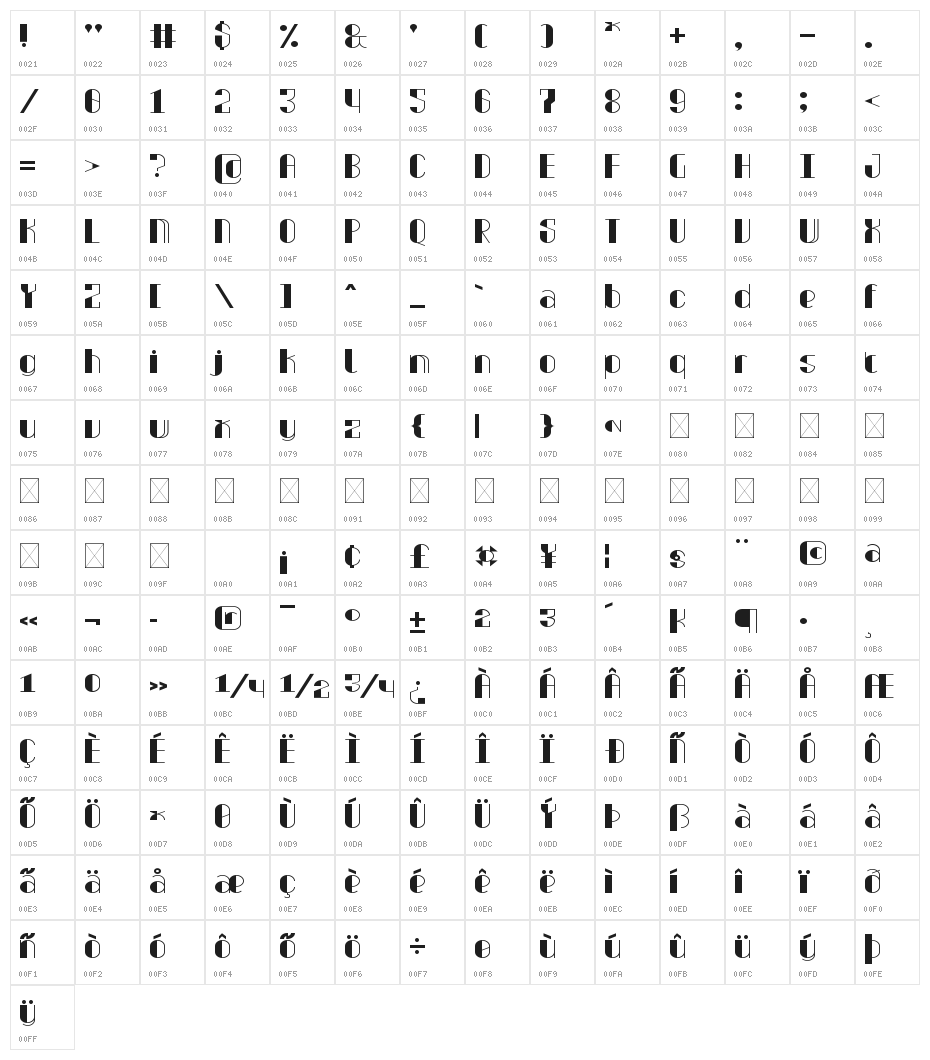
Laconica Regular Font
Laconica Regular Description
This font features a modern and geometric style with a unique blend of sharp angles and smooth curves. The uppercase letters exhibit a bold presence with distinct vertical and horizontal strokes, while the lowercase letters maintain a consistent style with slightly more rounded edges. The numerals are designed to complement the alphabet with a similar geometric approach, ensuring uniformity across all characters. The special characters are crafted to match the overall aesthetic, providing a cohesive look. The font's design is both striking and versatile, making it suitable for a variety of applications.
| Overall Style | Modern, Geometric |
| Proposed Projects | Ideal for branding, logos, headlines, and modern design projects that require a bold and distinctive typeface. |